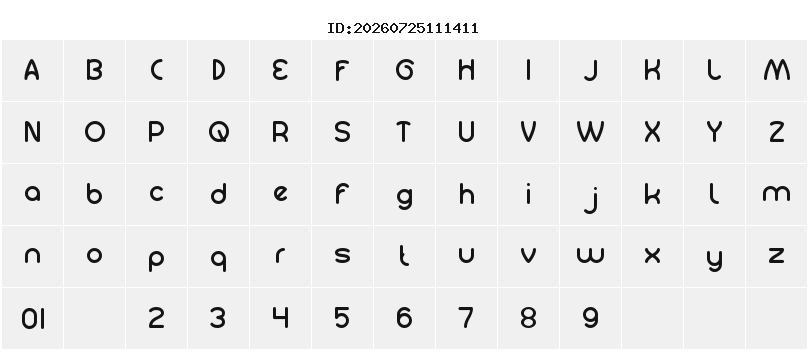
GUITAR ACOUSTIC Preview
• Font Name: GUITAR ACOUSTIC
• Full Font Name: GUITAR ACOUSTIC
About GUITAR ACOUSTIC.ttf
GUITAR ACOUSTIC.ttf is a modern, elegant sans-serif font designed for ultimate readability and visual harmony. Perfect for branding, headlines, web design, and print materials.